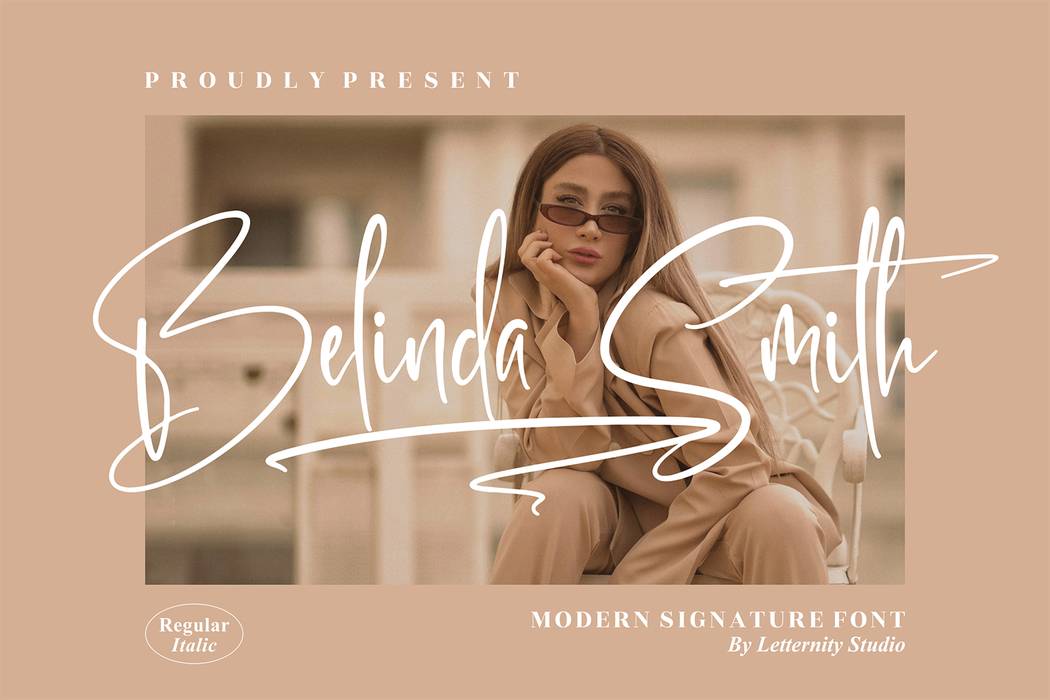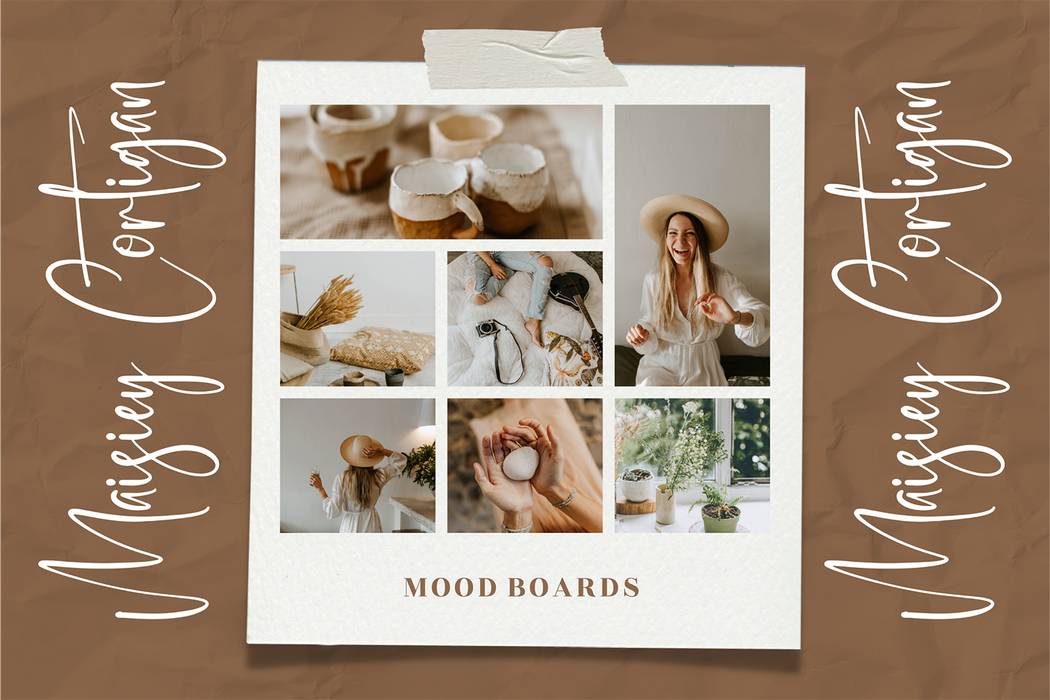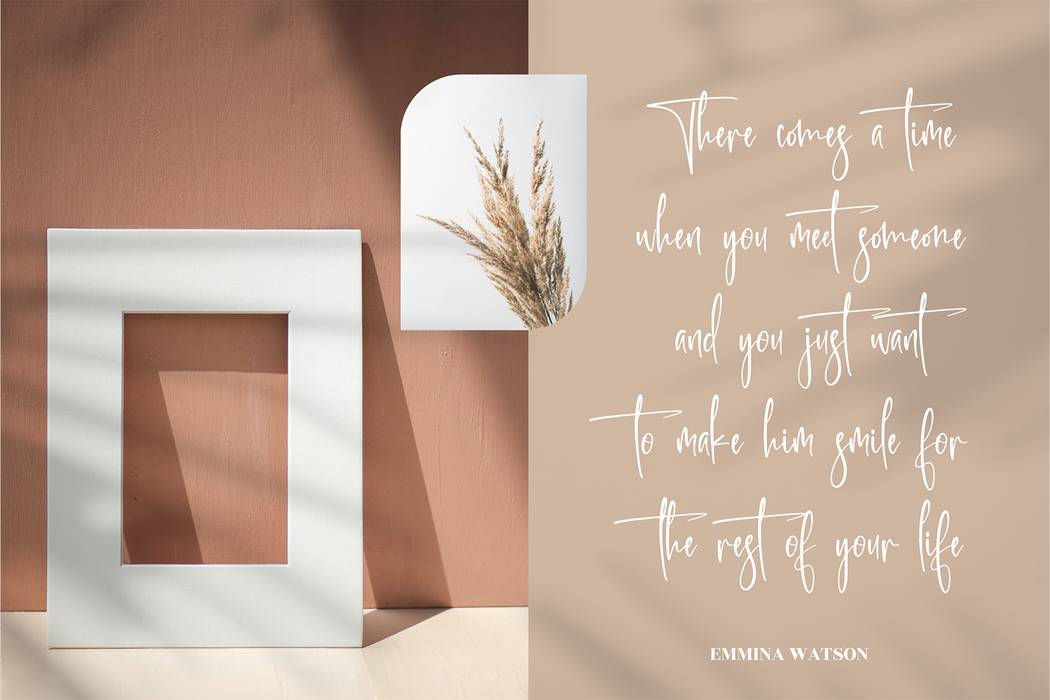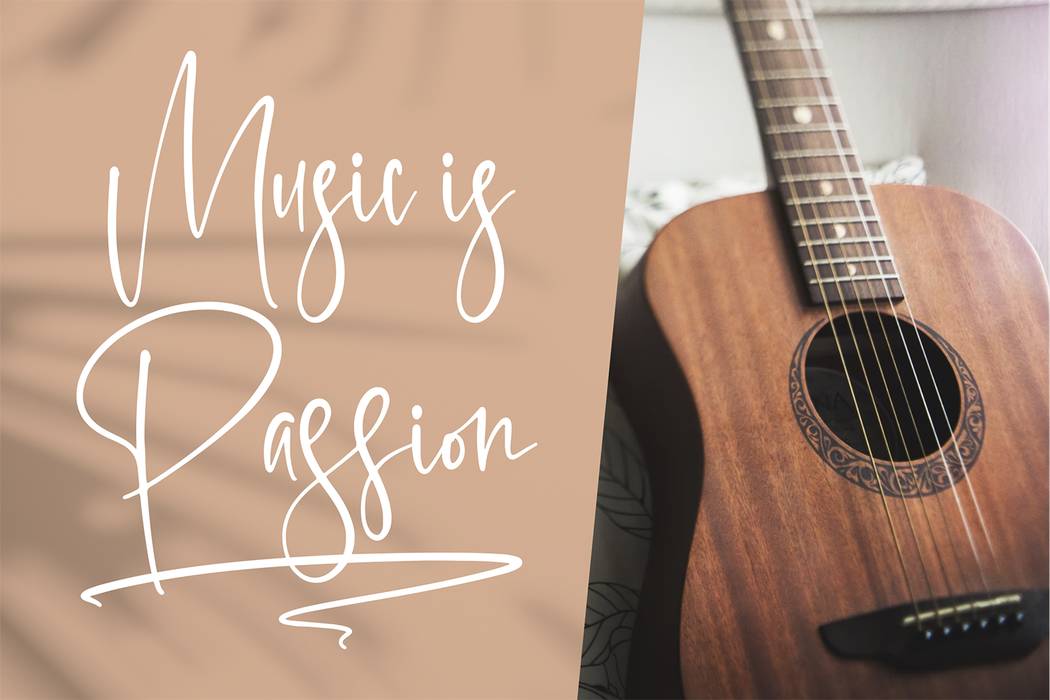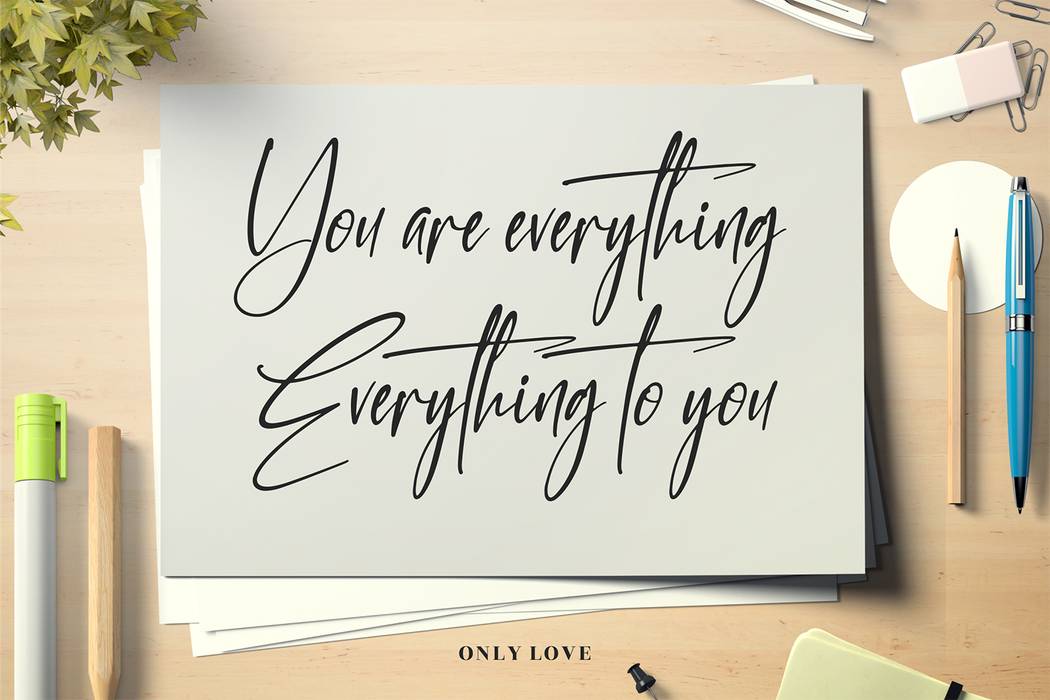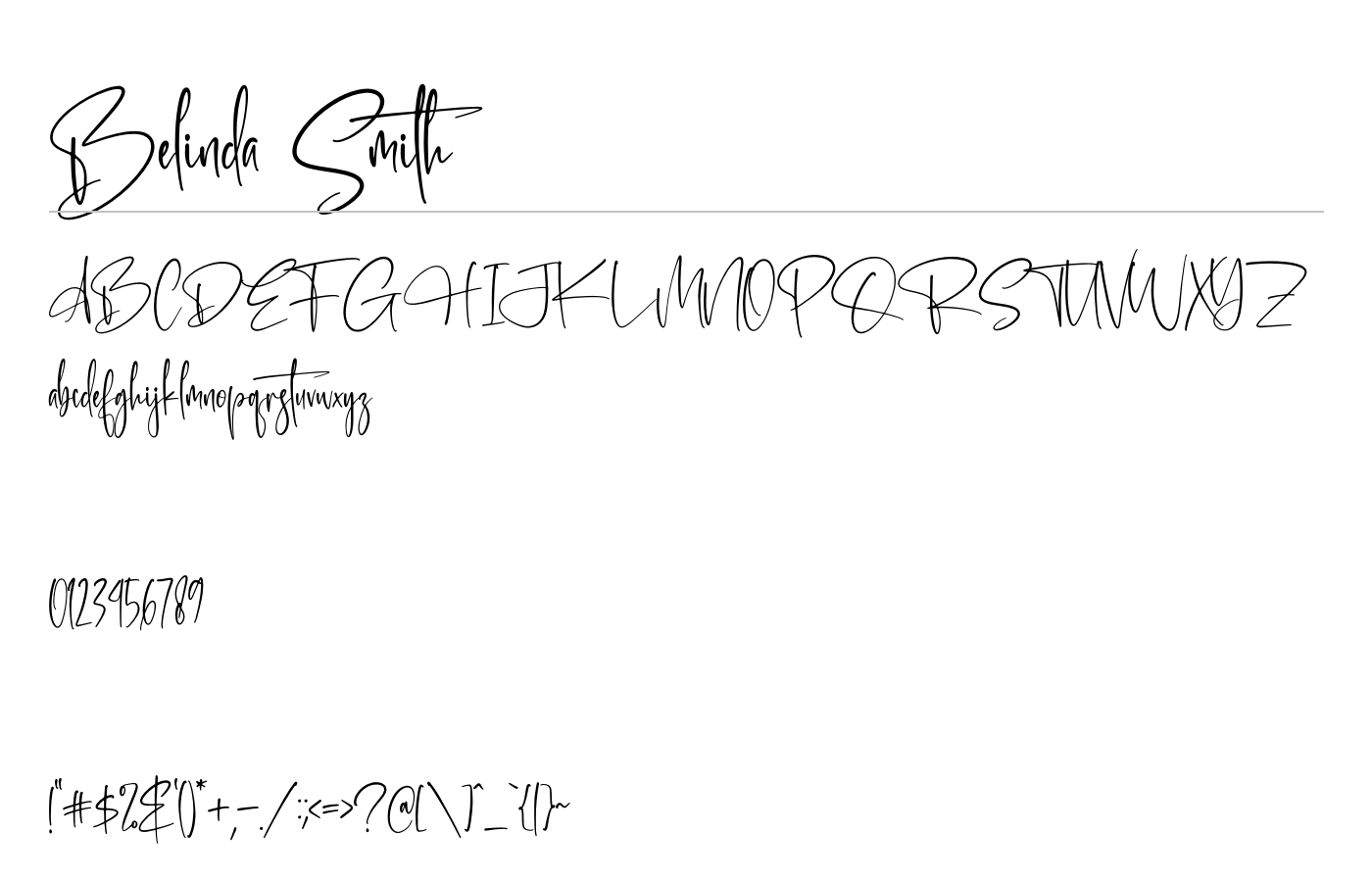
Belinda Smith is a delicate, hand-drawn script font characterized by its tall, narrow letterforms and flowing, elegant lines. Its light weight and loosely connected strokes give it a whimsical yet sophisticated feel, making it ideal for personal branding, invitations, and creative projects that seek a stylish, modern handwritten touch. This font works best in display settings where its graceful personality can shine without sacrificing readability.
Belinda Smith Font
About Belinda Smith Font